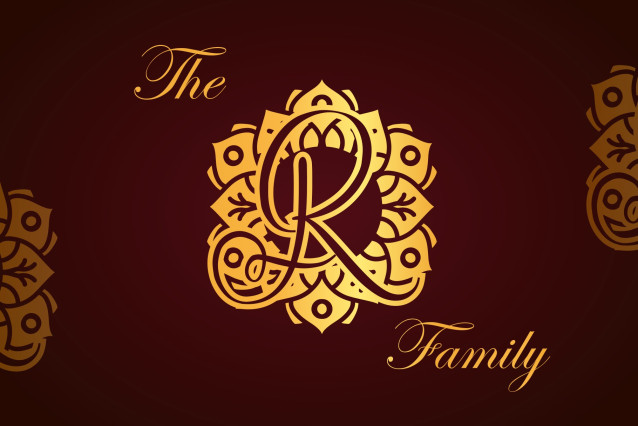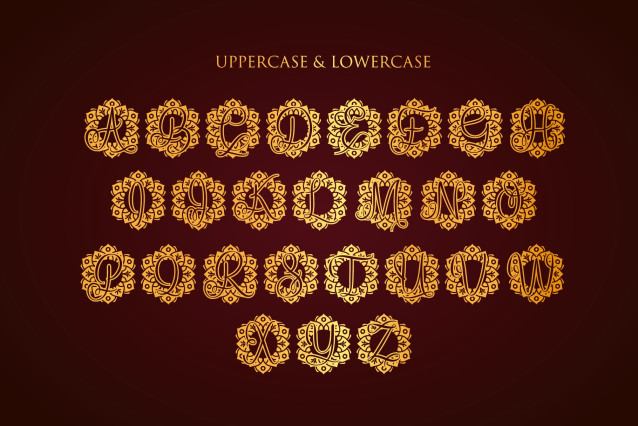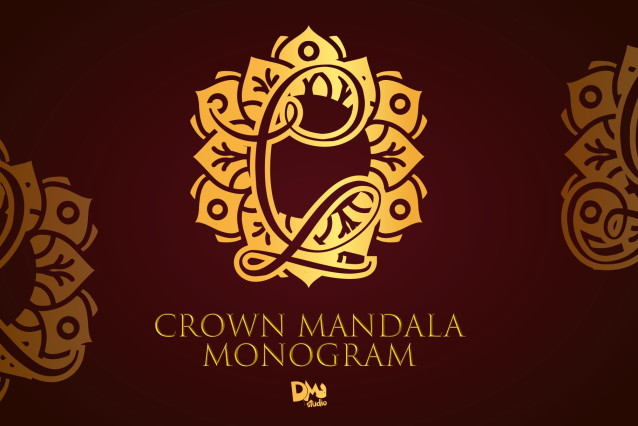
Crown Mandala Monogram Font
Crown Mandala Monogram is a luxurious monogram font that combines royal crown elements with intricate mandala patterns. Inspired by classic elegance and ornamental artistry, this font is perfect for wedding invitations, upscale branding, luxury packaging, personalized gifts, and regal-themed designs. Its sophisticated detailing brings a majestic and timeless feel to any project.